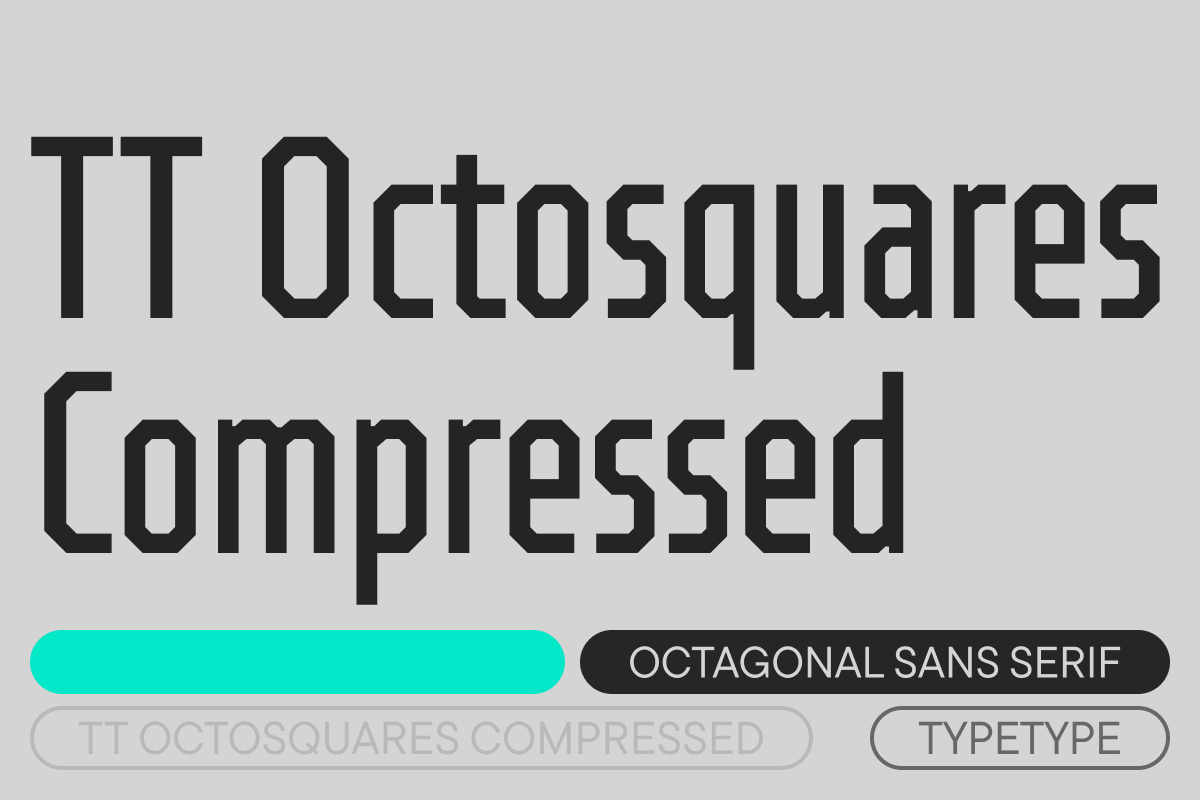
TT Octosquares Compressed Bold Italic
TT Octosquares is an octagonal sans serif with futuristic traits. It’s an expanded and significantly enhanced version of our first commercial typeface, TT Squares. We gave TT Octosquares much more functionality and a fresher, more relevant look. This typeface stands out for its geometric and distinctively “mosaic” appearance: it looks as if it is pieced together from various elements, which is clearly visible even in the tiniest details. At the stage of perfecting the glyph contours, we refine